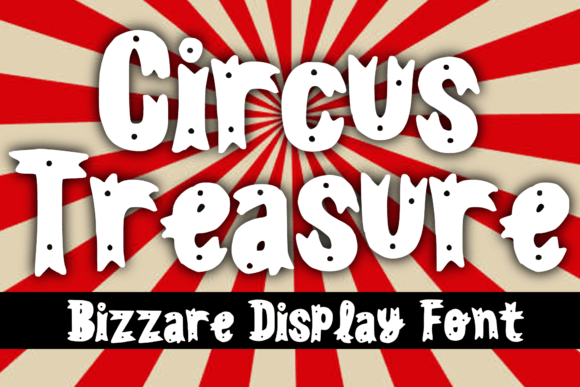
Step right up, dear customers, and feast your eyes upon the Circus Treasure Font, a spectacular display font that will ignite your imagination and transform your designs into captivating masterpieces. Picture an enchanting circus under the big top, with vibrant colors, thrilling acts, and an air of excitement that fills the air. Circus Treasure Font captures the essence of this magical world, inviting you to add a touch of whimsy and wonder to your creative projects.
Unleash your inner artist and let Circus Treasure Font guide you through a kaleidoscope of design possibilities. Its bold and playful characters dance across the page, captivating the attention of all who lay their eyes upon them. With its unique circus-themed flair, this font adds a touch of nostalgia, fun, and enchantment to any project you undertake.
Imagine your designs taking center stage, shining brighter than a star under the big top. Circus Treasure Font's eye-catching style commands attention, making your words and messages leap off the page and into the hearts of your audience. Whether you're crafting eye-catching posters, creating playful greeting cards, or designing whimsical t-shirts, this font is your trusty companion, ready to add a dash of magic to every endeavor.
Step into the extraordinary world of Circus Treasure Font and witness the transformation of your designs. Its versatile nature makes it a perfect fit for a wide range of projects, from eye-catching logos and branding materials to dazzling social media graphics and website designs. Its ability to capture the essence of joy, laughter, and excitement makes it a perfect choice for projects aimed at children or those seeking a touch of lightheartedness in their designs.
Circus Treasure Font is not just a font; it's an invitation to embark on an artistic adventure, where imagination reigns supreme and creativity knows no bounds. Let your designs take flight, soar through hoops of fire, and amaze your audience with the sheer brilliance of your creations. Dare to be different, to embrace the extraordinary, and to let Circus Treasure Font guide you toward design greatness.